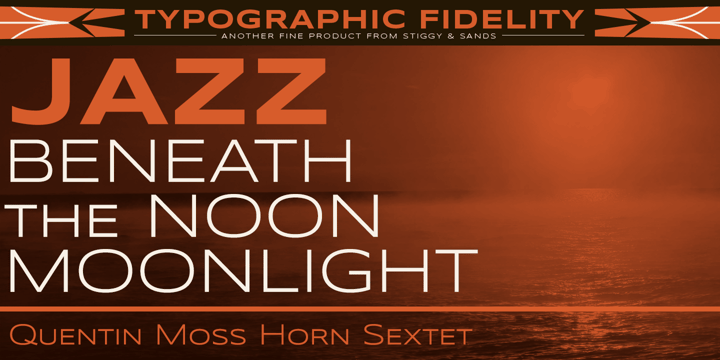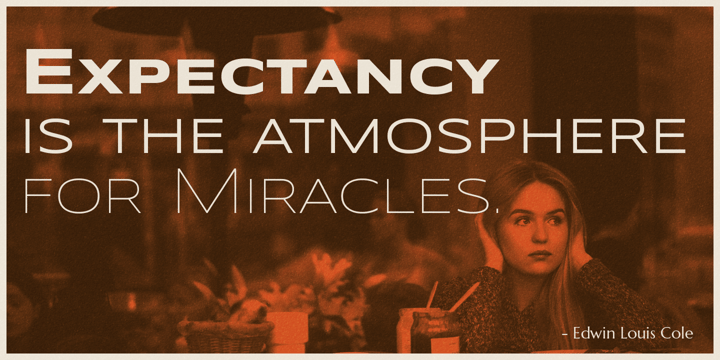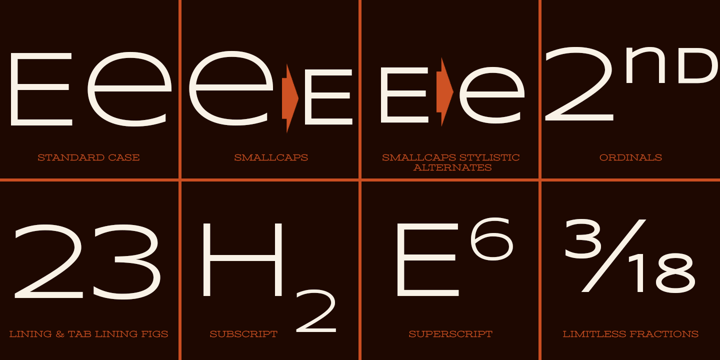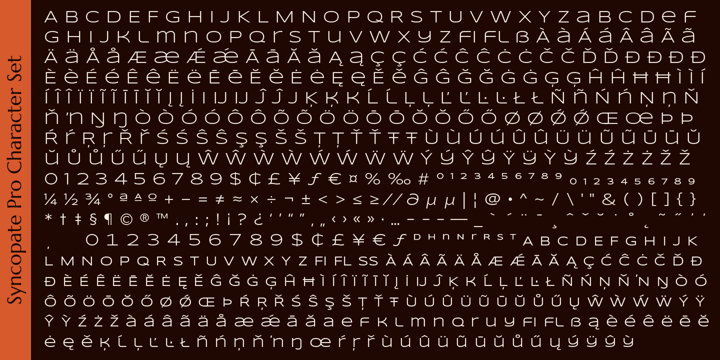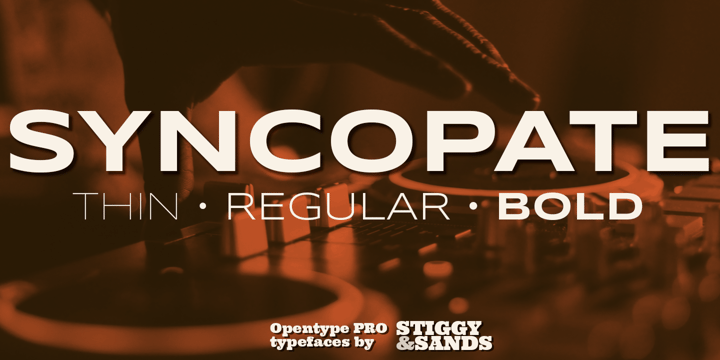
About Syncopate
The Syncopate Pro Family is a unicase design where the traditional lowercase x-height has been abandoned and a single uppercase height rules the design of all of the alpha and numeric glyphs. Some uppercase glyphs are copied to their lowercase slots,…